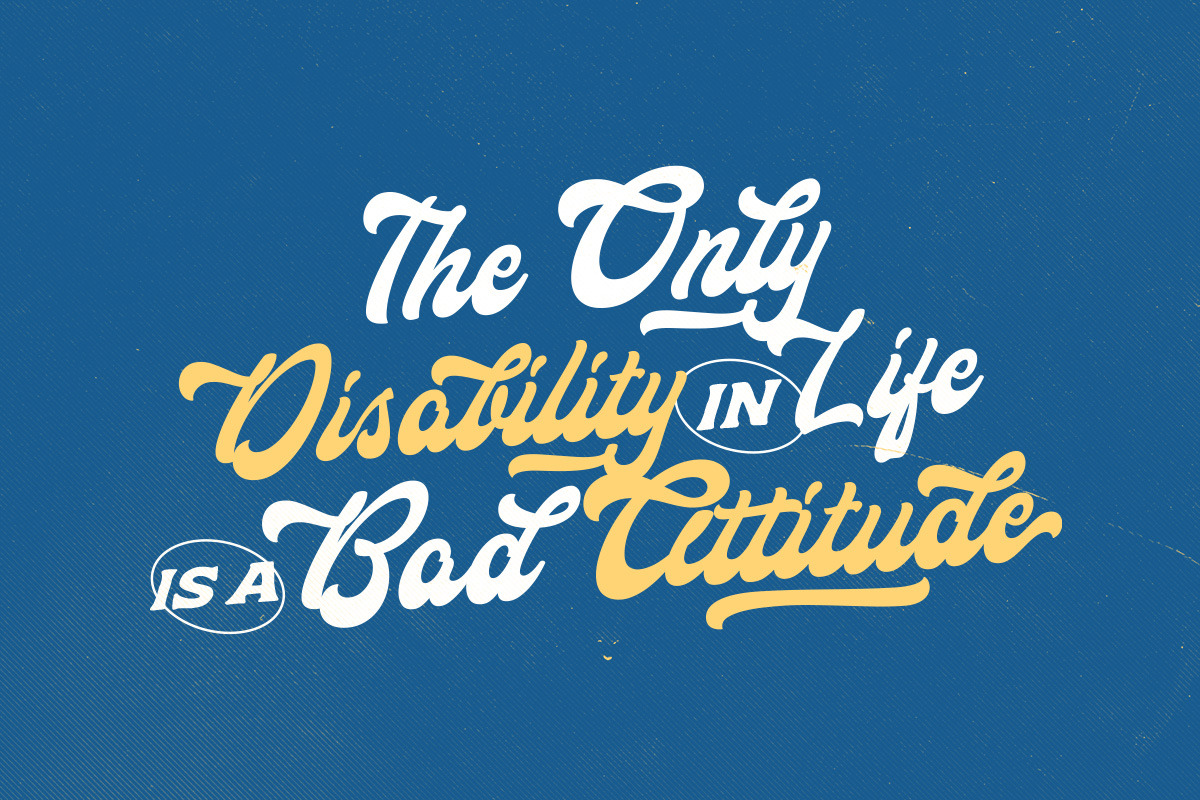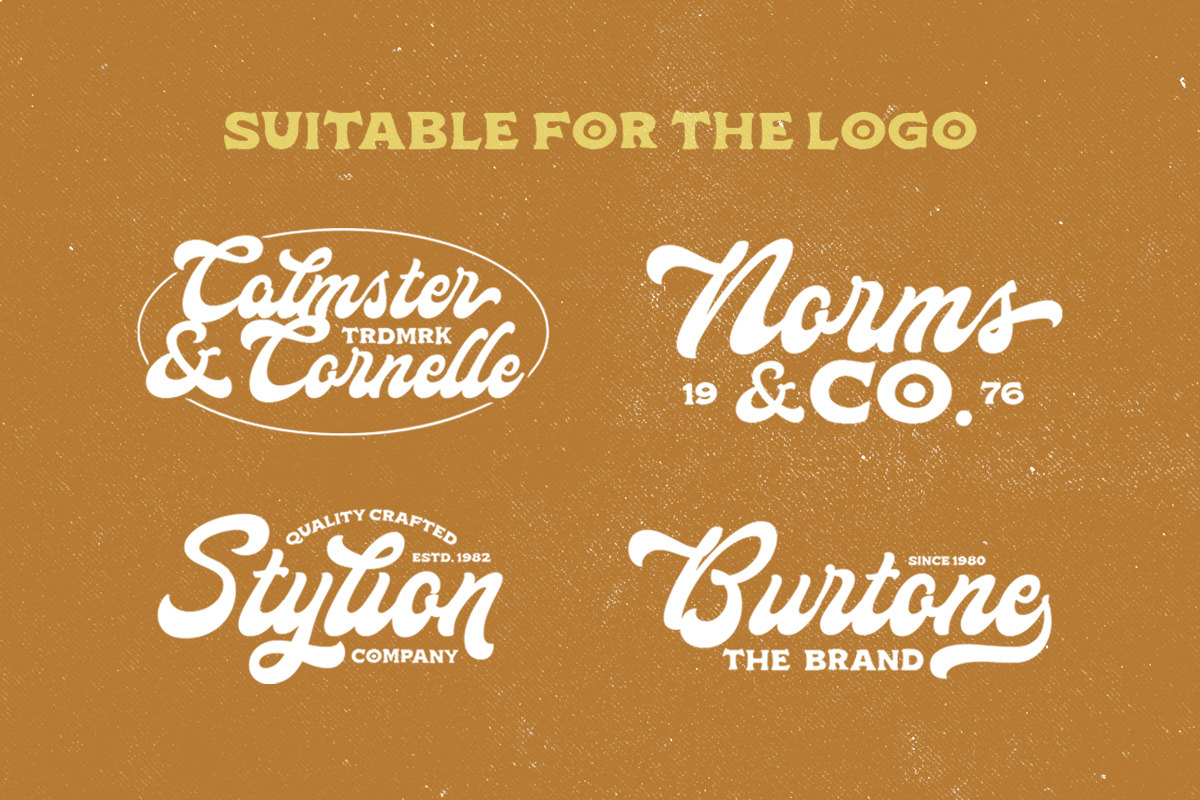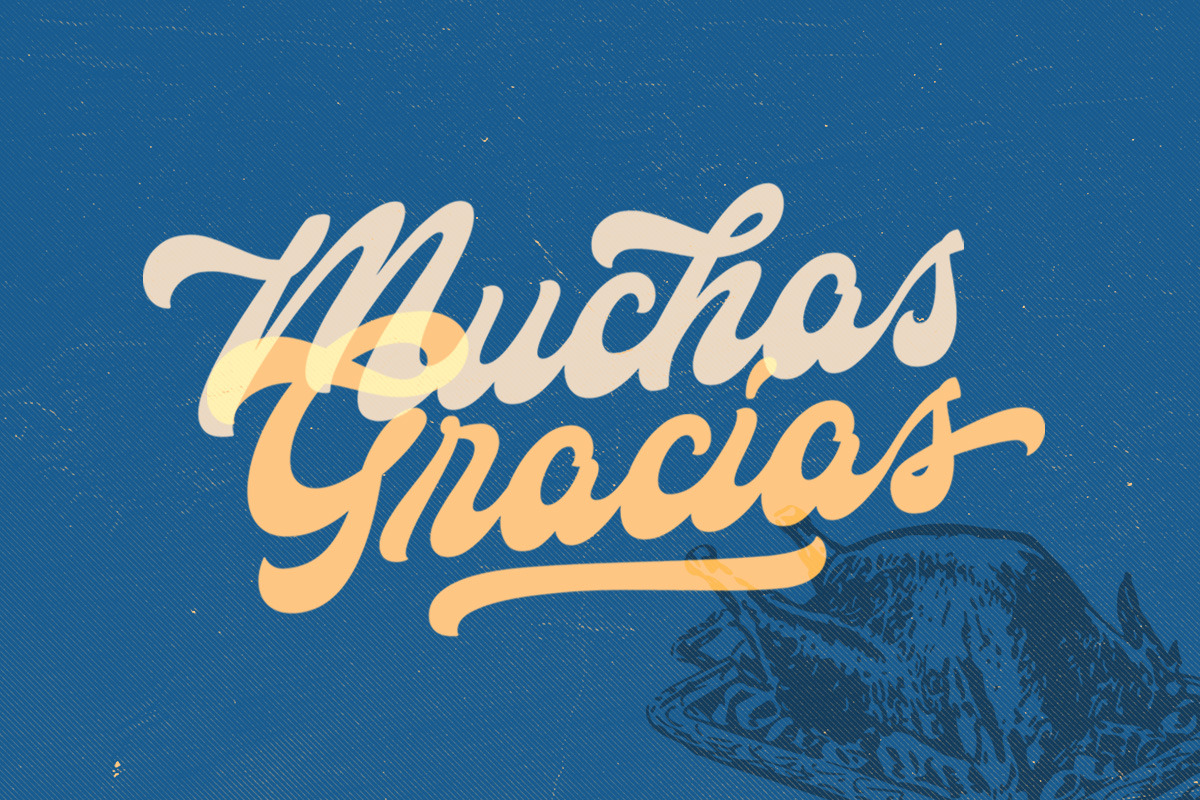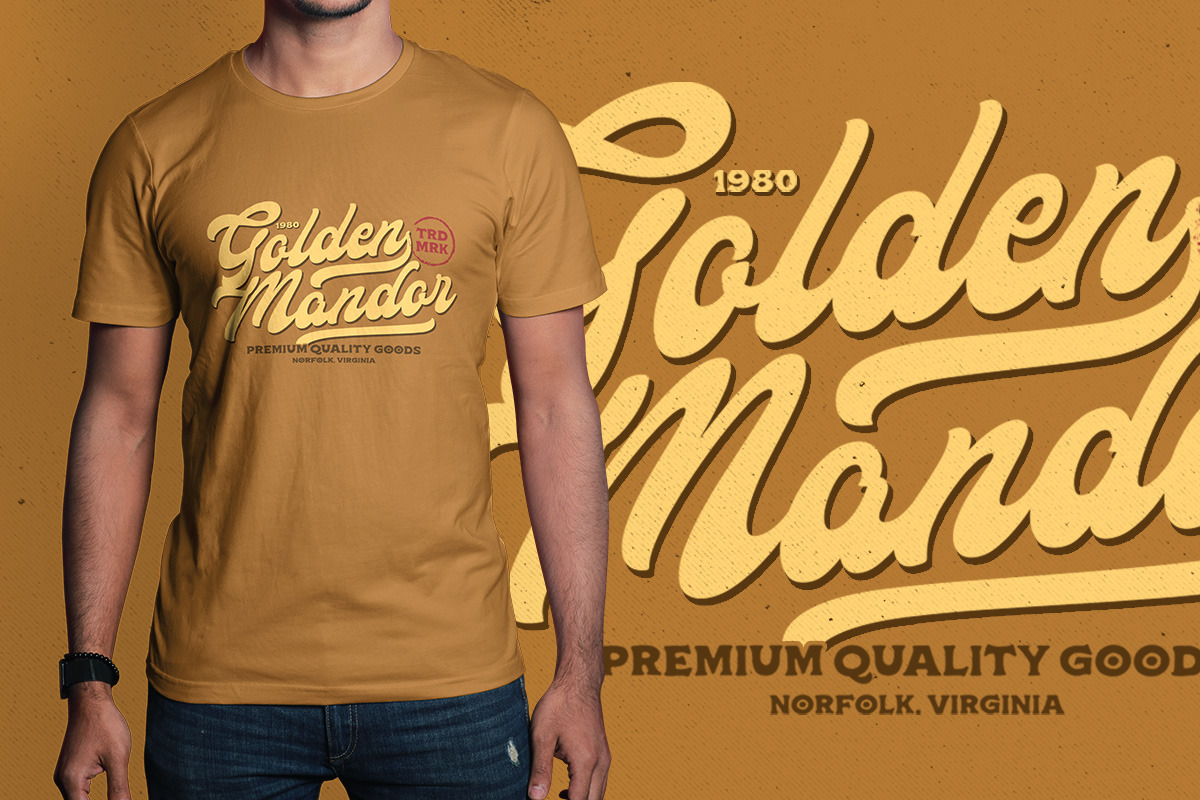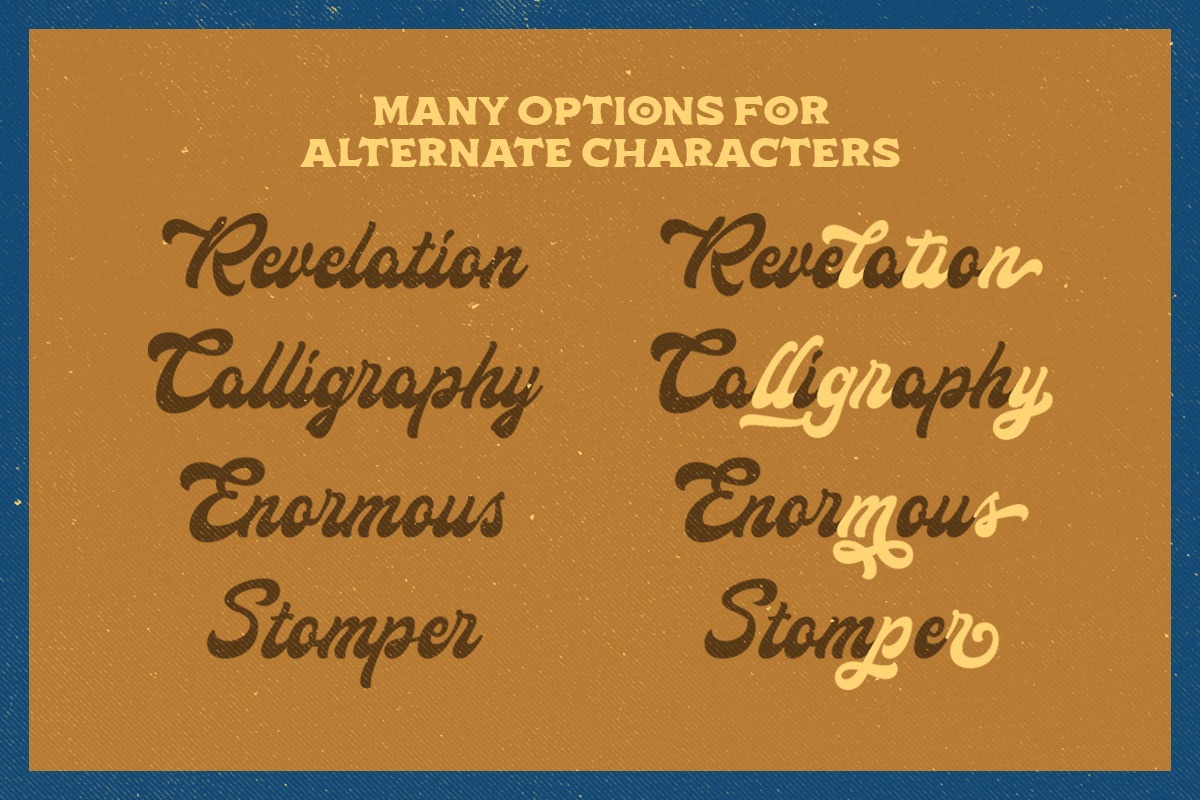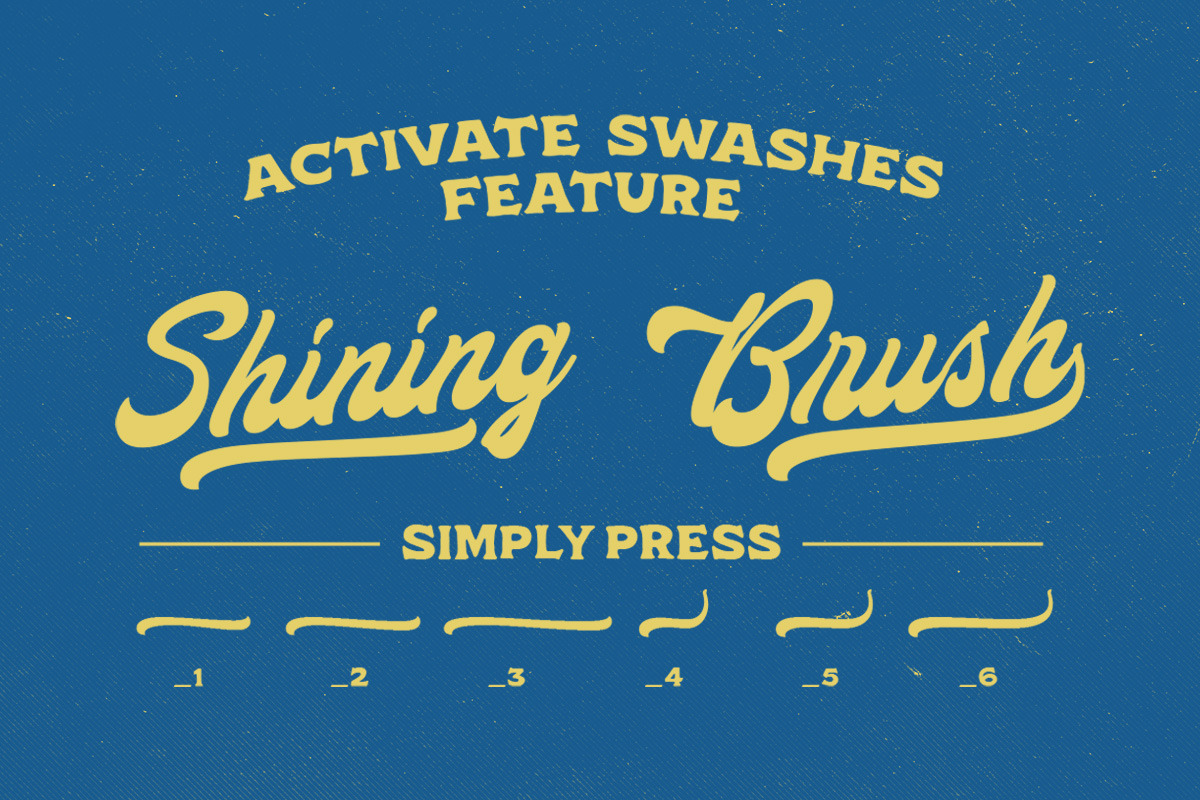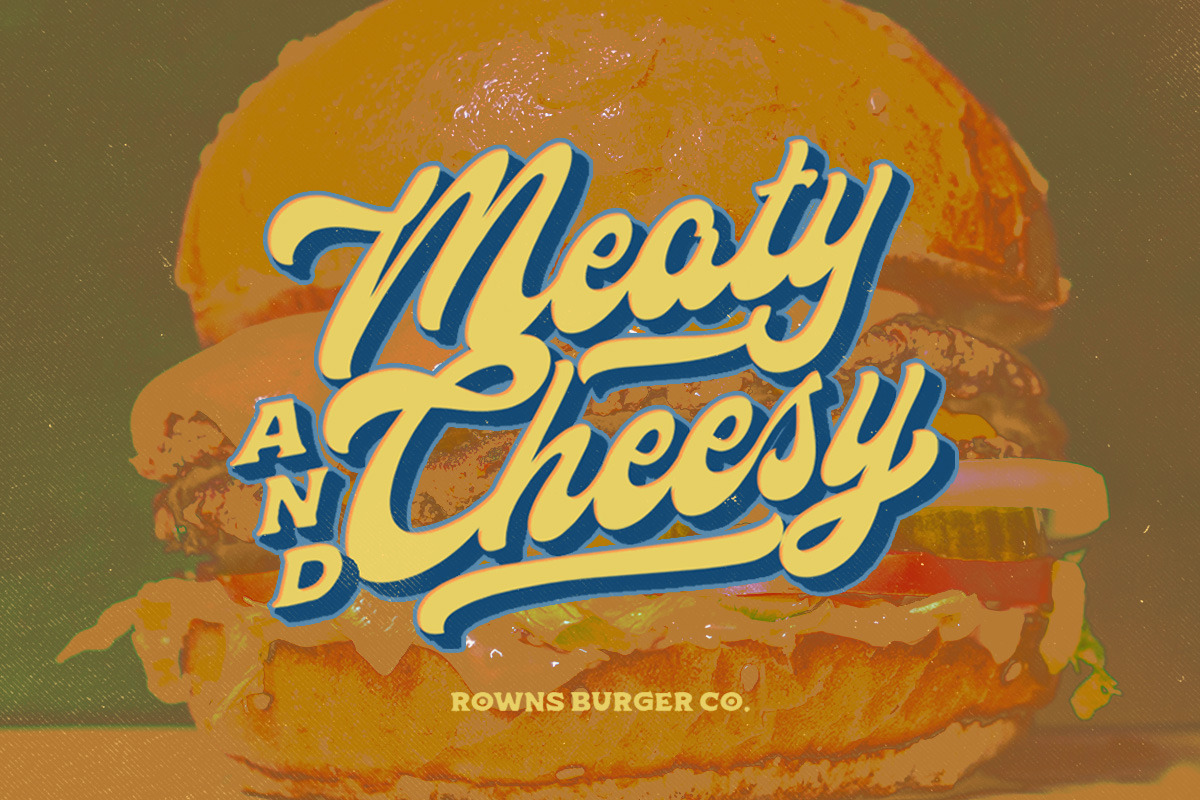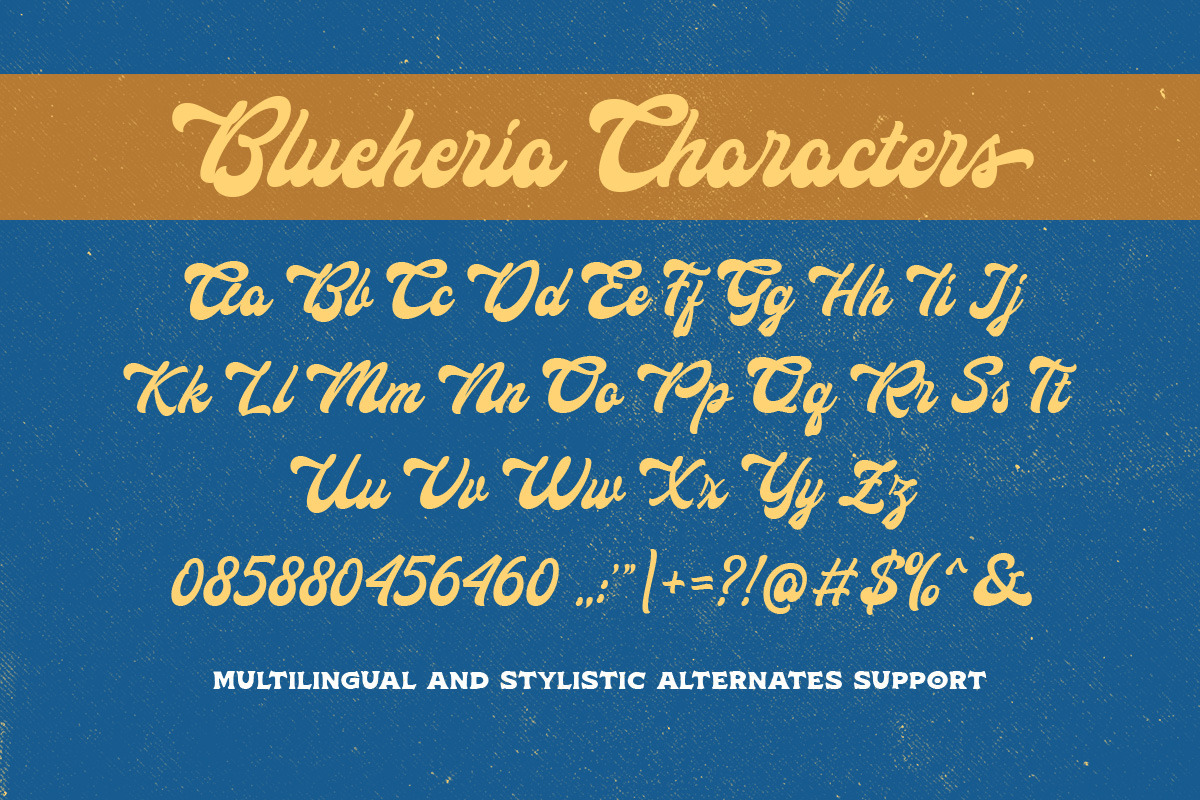
Blueheria- Display Script
Blueheria is bold script which looks great for vintage and adventure theme! This font is also suitable to be applied especially in logo, and the other various formal forms such as invitations, labels, logos, magazines, books, greeting / wedding cards, packaging, fashion, make up, stationery, novels, labels or any type of advertising purpose.
- Alternate Character